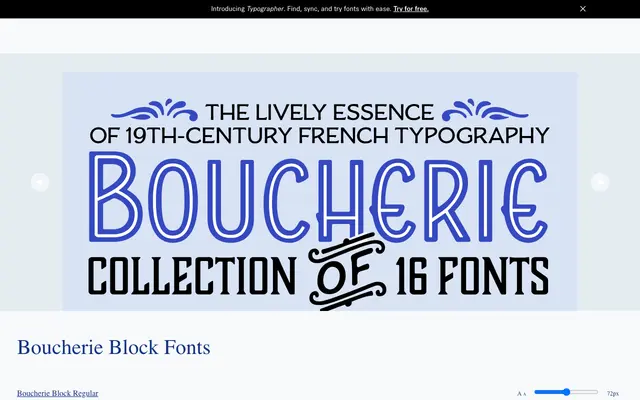
Boucherie
A coordinated collection of display typefaces drawn from 19th-century French advertising typography, with four complementary subfamilies and a suite of ornamental design elements.
Four distinct display fonts cover block, cursive, flared and sans styles, all designed to sit together in typographic compositions that recall French commercial lettering of the 1800s. Catchwords, frames and ornaments extend the system for more elaborate layouts. OpenType swashes, alternates and stylistic sets are accessible without professional design software, via coded shortcuts built into the fonts.
A collection of four distinct display typefaces inspired by 19th-century French advertising typography, including block, cursive, flared and sans subfamilies, clearly placing it in the display category with a decorative, historical vernacular character.